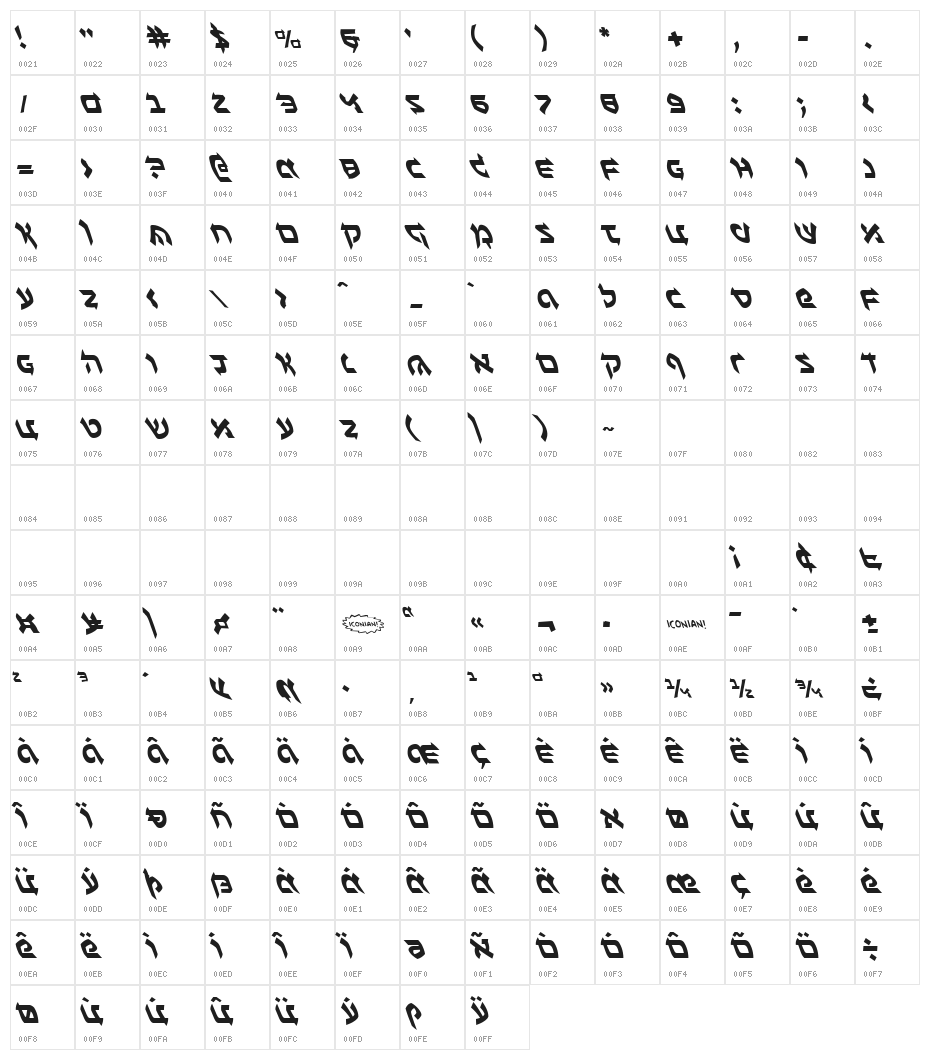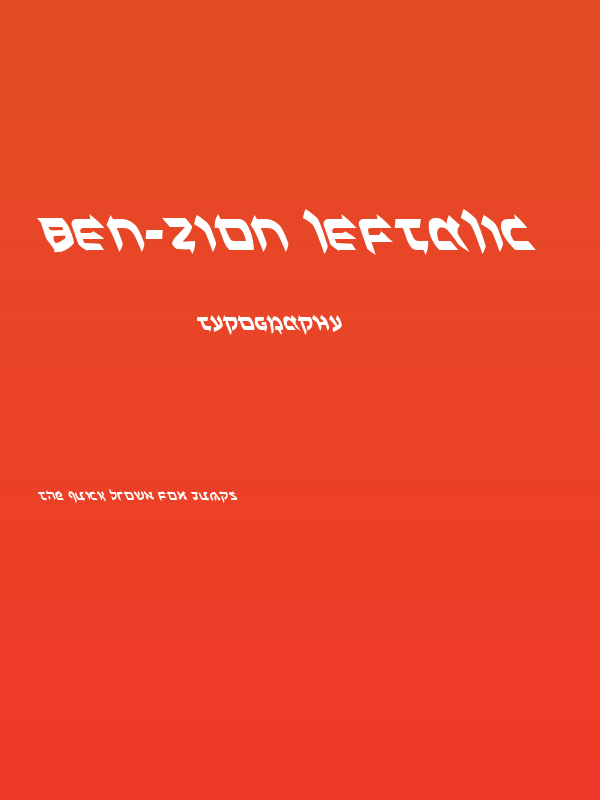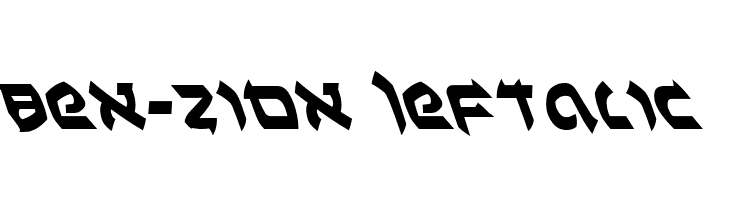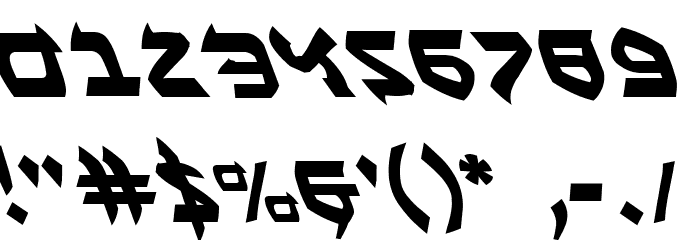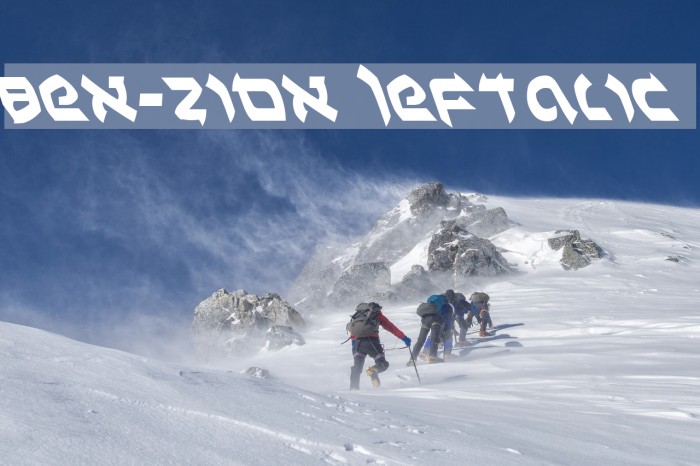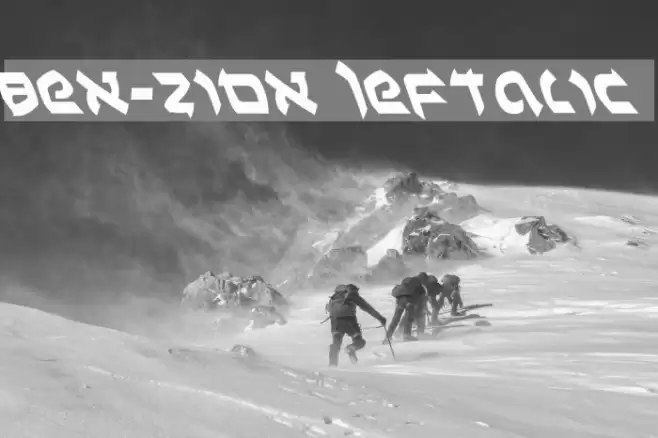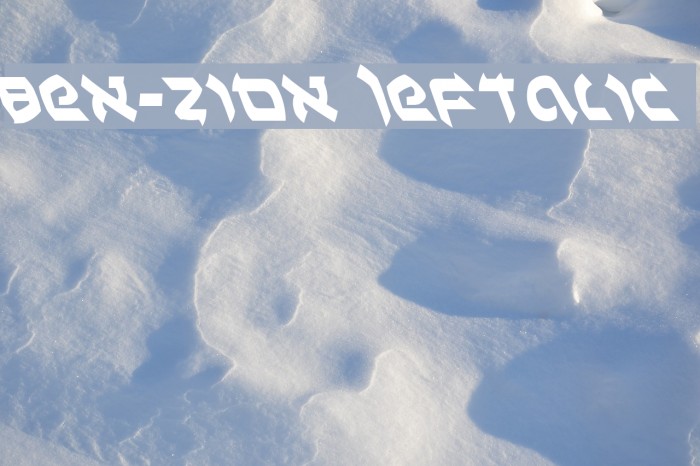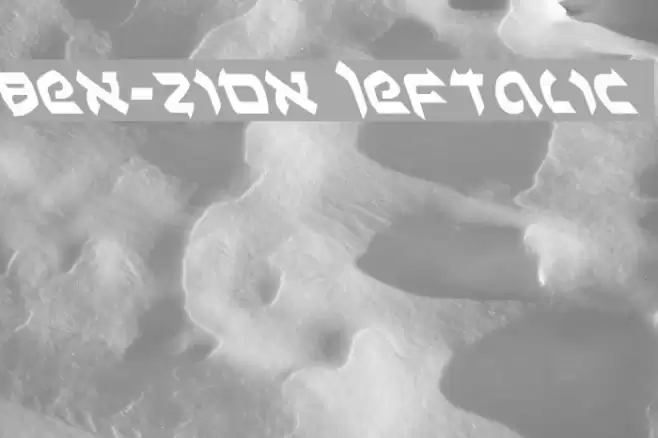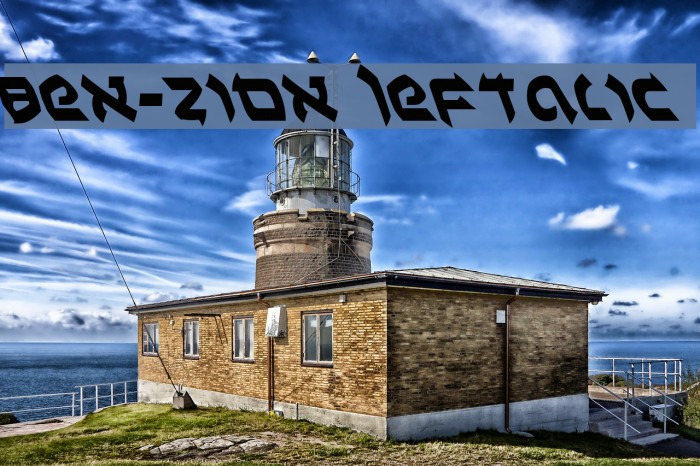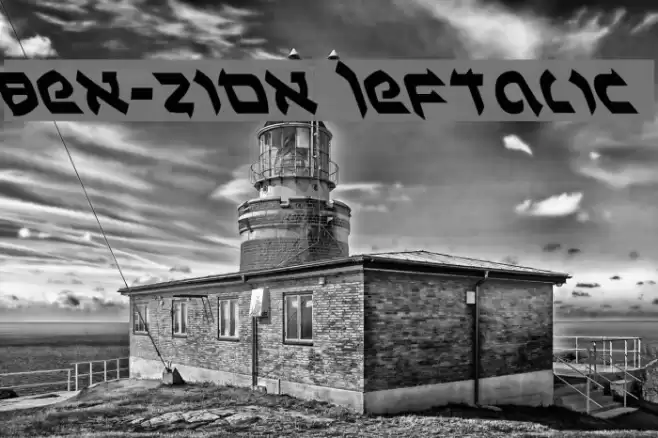
Ben-Zion Leftalic Font
Ben-Zion Leftalic Description
This font features a bold and angular design with a futuristic and edgy appearance. Each character is crafted with sharp, geometric lines that create a sense of movement and dynamism. The uppercase and lowercase letters maintain a consistent style, with unique cuts and angles that give the font a distinctive look. The numerals and special characters follow the same design principles, ensuring uniformity across all glyphs. The font's overall aesthetic is modern and striking, making it suitable for projects that require a bold statement.
| Proposed Projects | Ideal for sci-fi themed posters, video game titles, branding for tech companies, and edgy graphic design projects. |